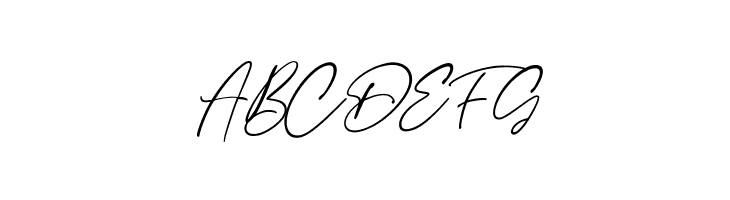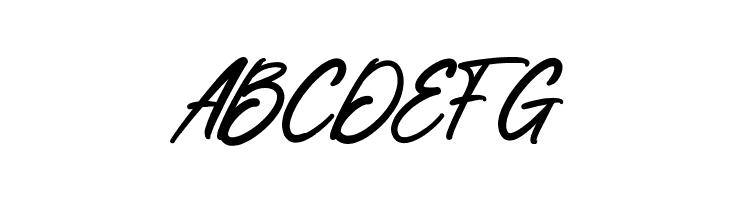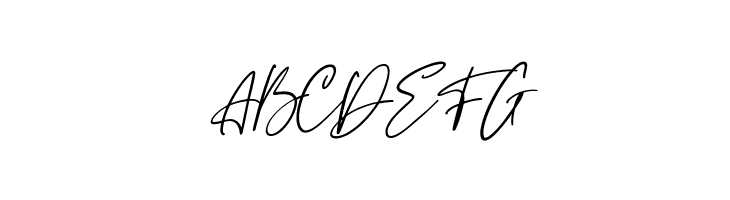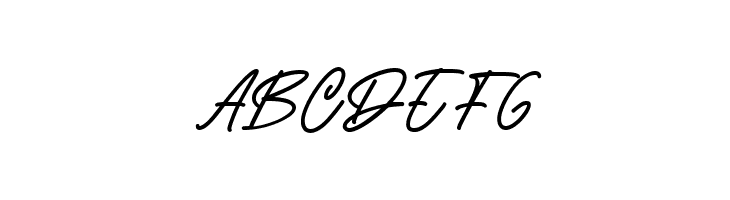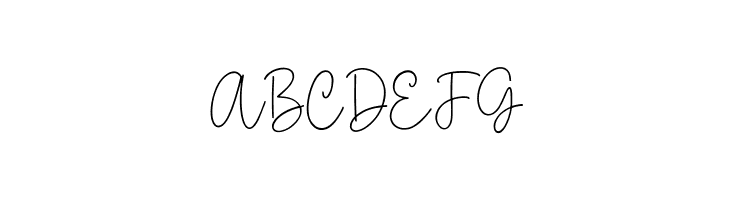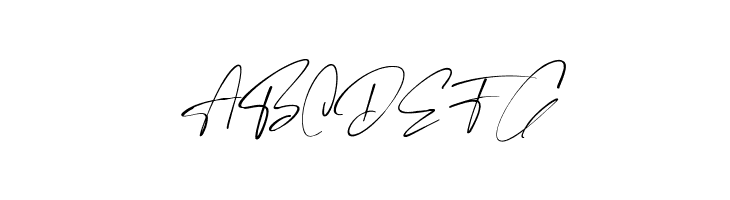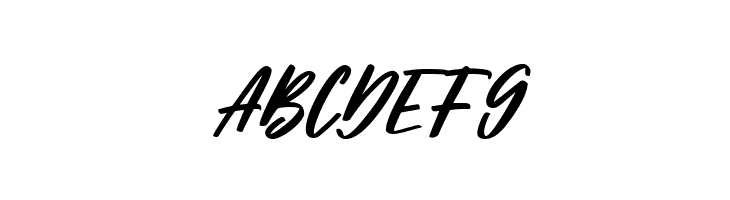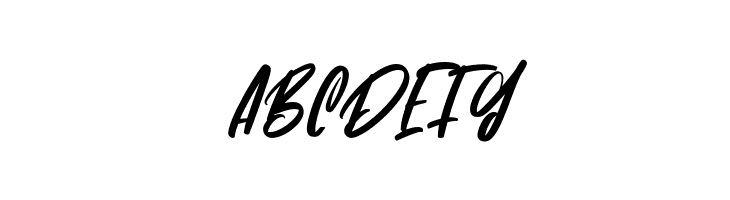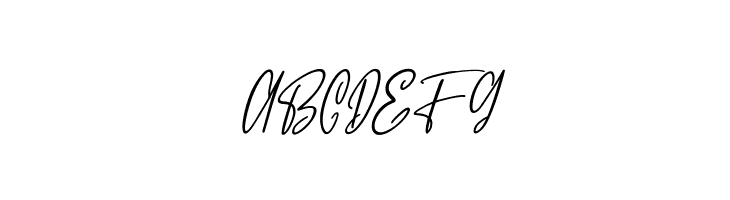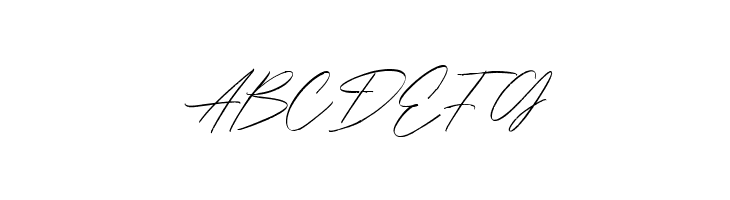
A dynamic and elegant script font with fluid, cursive strokes.
A dynamic and flowing script font with elegant, cursive letterforms.
A sophisticated and elegant script font with fluid, graceful strokes.
A graceful script font with fluid, cursive strokes and a handwritten aesthetic.
A flowing, cursive font with elegant, sweeping strokes.
A dynamic and fluid script font with smooth, flowing lines and cursive letterforms.
A modern, elegant script font with fluid, cursive letterforms.
A modern, elegant handwritten font with fluid and cursive letterforms.
A flowing, cursive font with elegant, elongated strokes and a sophisticated yet approachable style.
A flowing, cursive script font with elegant, connected characters.
A graceful handwritten script font with elegant, flowing curves.
An elegant, flowing script font with a natural handwriting style.
A dynamic, expressive handwritten font with fluid strokes and a lively character.
A bold, cursive script font with a dynamic and energetic style.
A dynamic and fluid script font with elegant, flowing letterforms.
A bold, energetic script font with a lively, handwritten style.
A modern handwritten script font with fluid, elegant strokes.
A dynamic script font with fluid, connected strokes and a handwritten style.
An elegant, flowing script font with thin, delicate lines and graceful curves.
A bold, cursive font with a lively and dynamic style.
A bold, cursive handwritten font with dynamic and fluid strokes.
A fluid and elegant script font with interconnected, graceful strokes.
A playful, casual handwritten font with smooth, flowing lines and a relaxed appearance.
A fluid and elegant script font with a handwritten style.
A lively, handwritten cursive font with fluid, connected strokes.
A dynamic and elegant script font with bold, flowing strokes.
A modern, elegant script font with flowing, connected characters.
An elegant and flowing script font with a sophisticated style.
A dynamic and elegant handwritten font with fluid, cursive strokes.
A cursive, handwritten font with elegant, flowing strokes.
An elegant script font with flowing, connected strokes and decorative swashes.
Handwritten cursive script font.
Playful handwritten font with a whimsical style.
Handwritten decorative font with artistic flair.
Elegant handwritten script font.